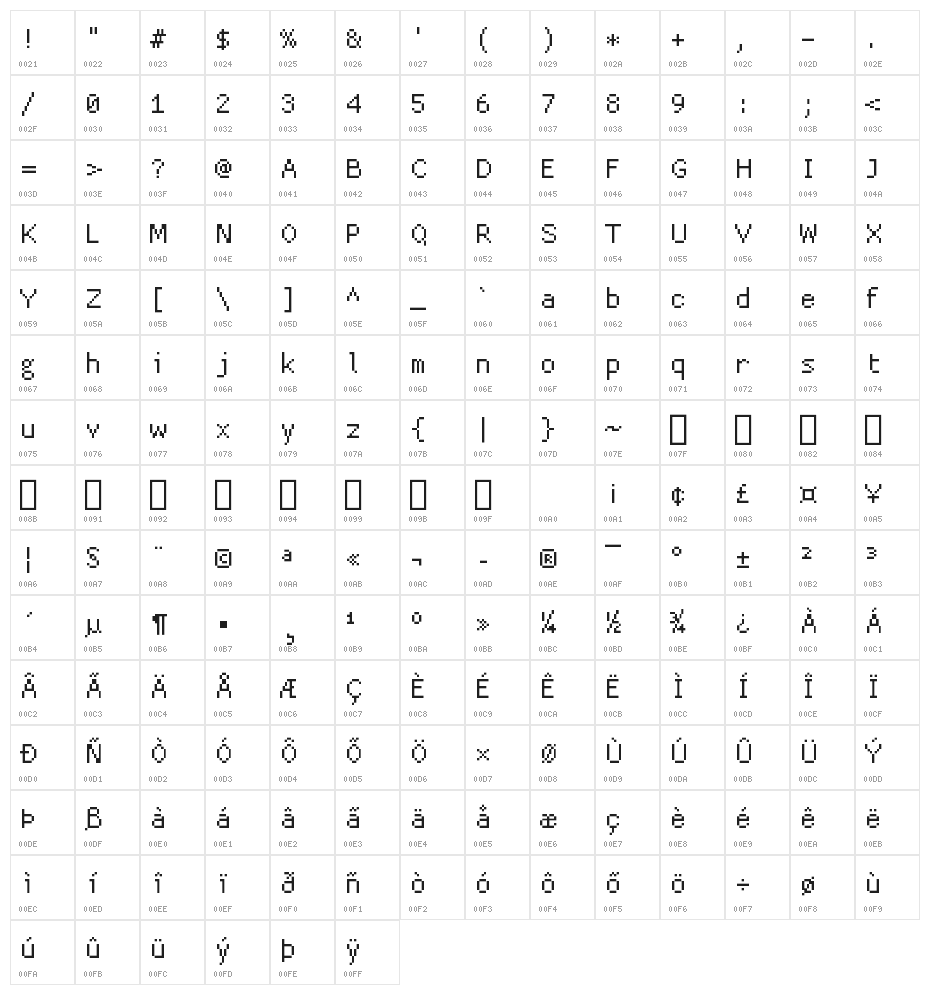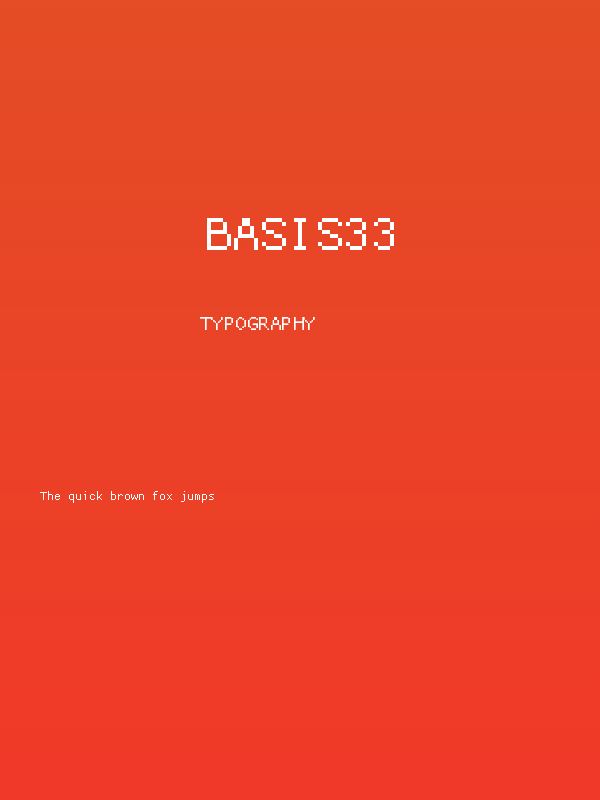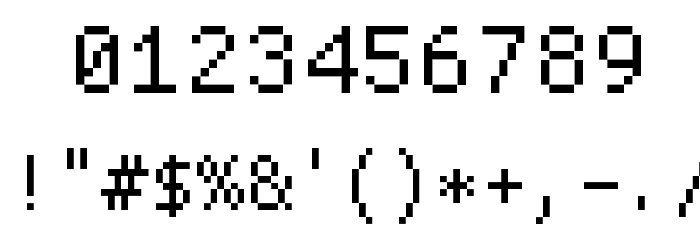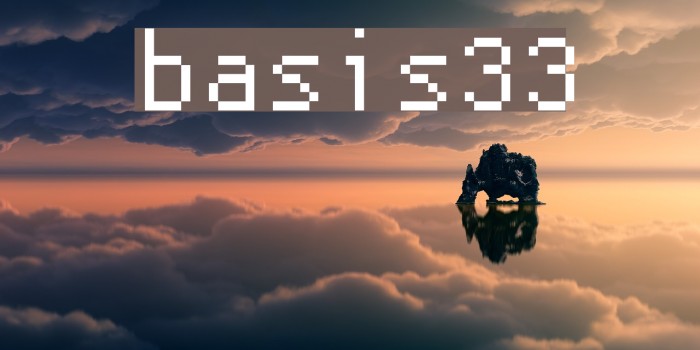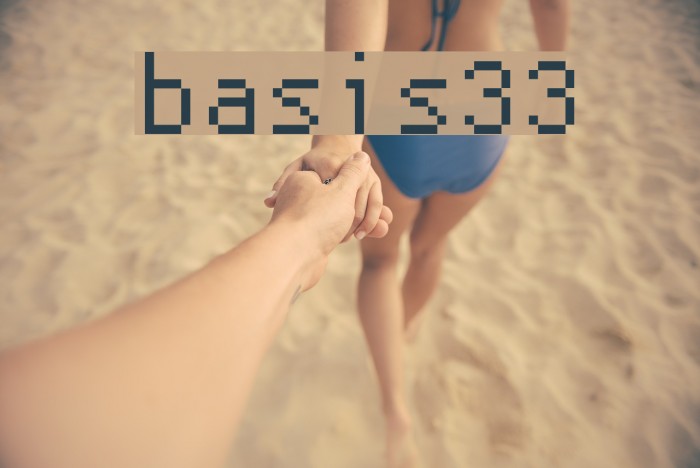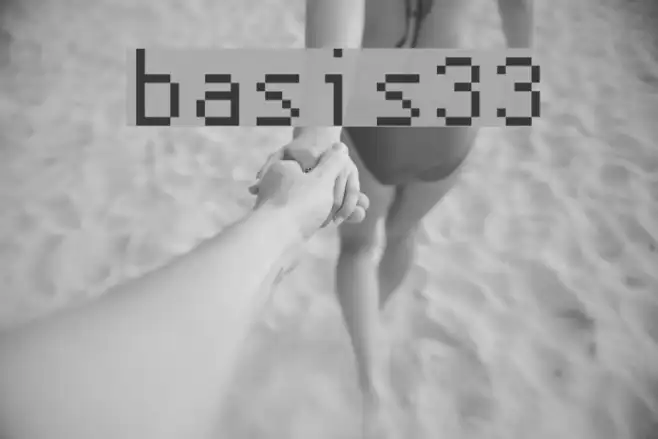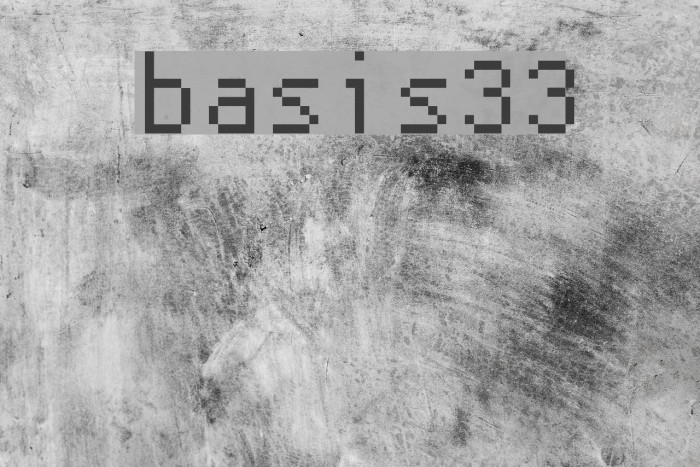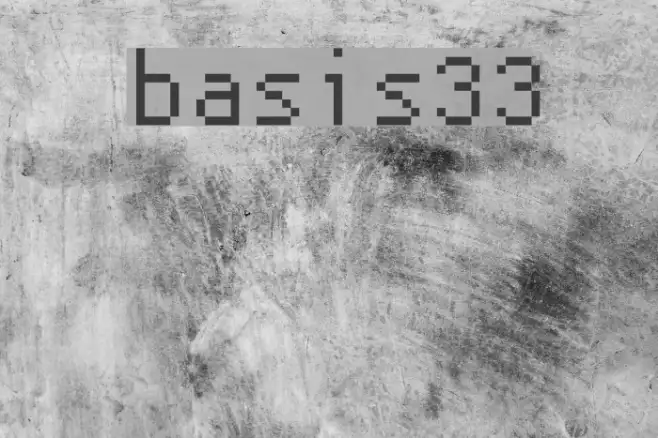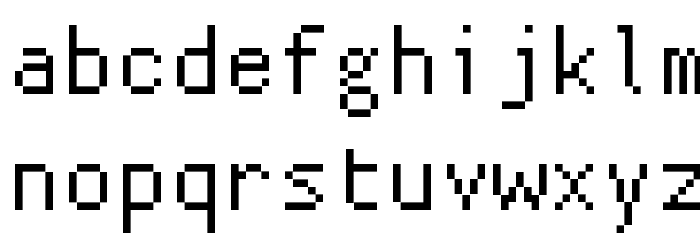
basis33 Font
basis33 Description
This font features a pixelated, blocky design reminiscent of early digital displays and retro video games. Each character is constructed with a grid-like precision, creating a uniform and mechanical appearance. The uppercase and lowercase letters maintain a consistent height, contributing to its monospaced nature. The numerals and special characters follow the same pixelated style, ensuring a cohesive look across all glyphs. This font's simplicity and clarity make it ideal for digital and retro-themed projects, where readability and a nostalgic aesthetic are desired.
| Use Case | Digital displays, Coding, Retro-themed projects |
| Proposed Projects | Ideal for retro video game designs, digital displays, coding environments, and any project requiring a nostalgic digital look. |